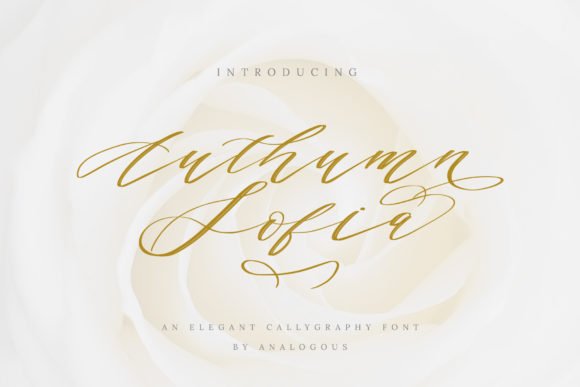
Introduction to Authumn Sofia Font
Authumn Sofia is inspired by classic typography and brings its own unique style to any design project.
This fantastic handwritten font is best suited for headlines of all sizes, as well as for blocks of text that have both maximum and minimum variations Whether it’s for web, print, moving images or anything else – Authumn Sofia will look spectacular.
Key Features of Authumn Sofia Font